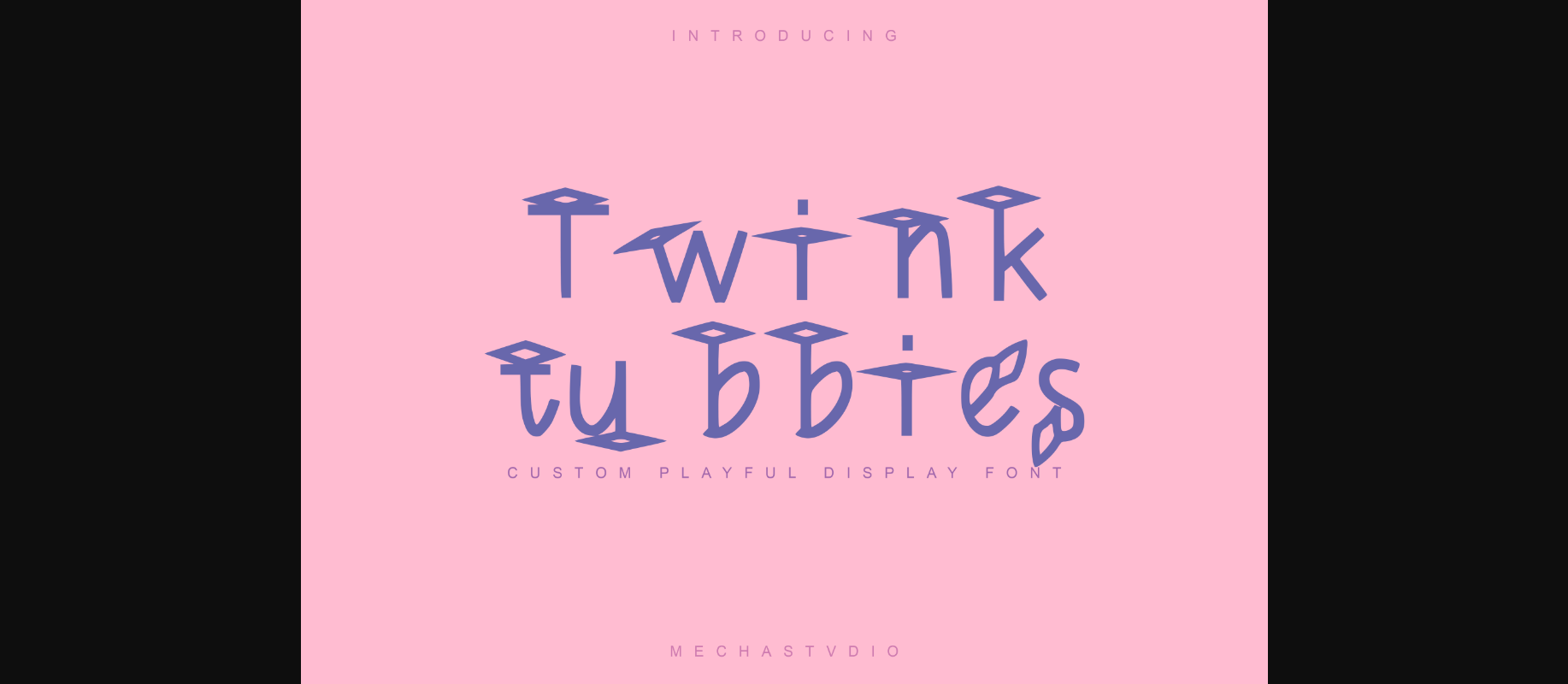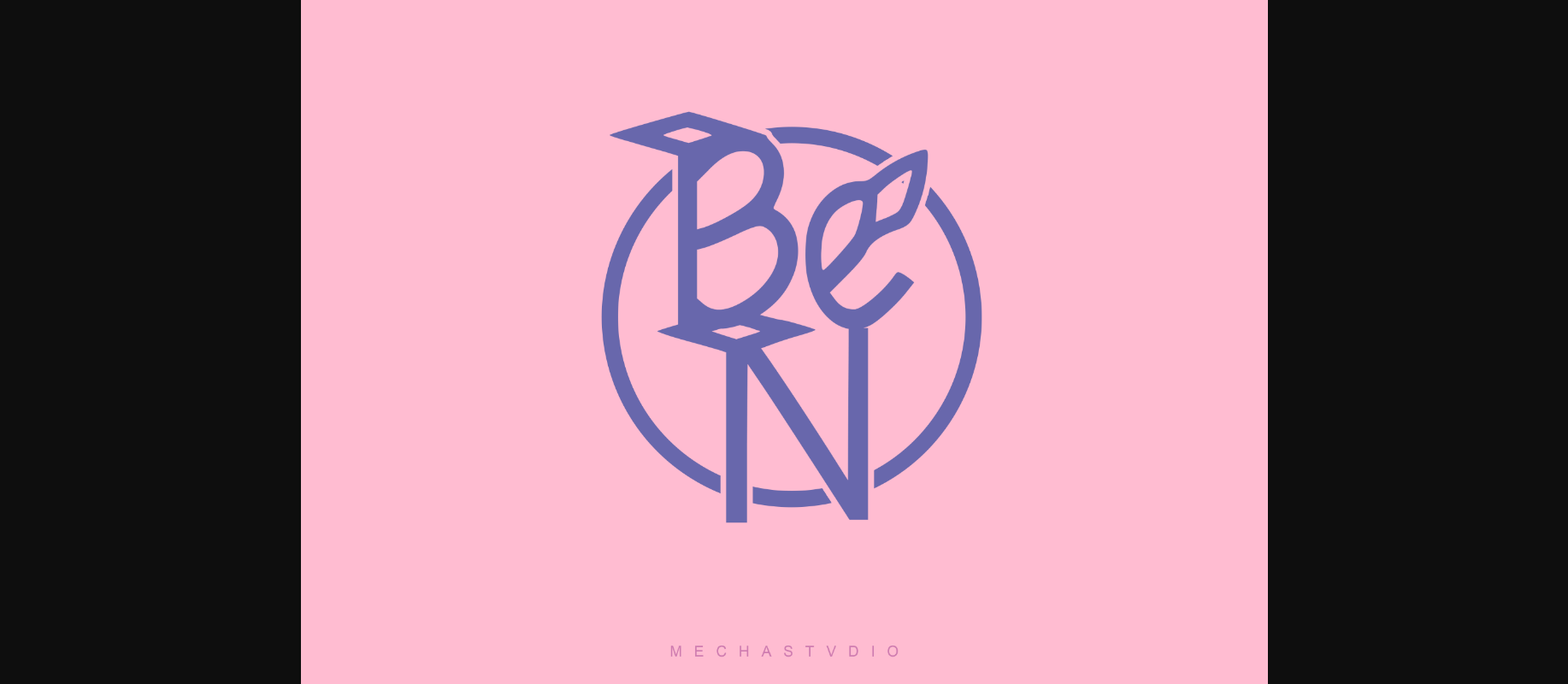
Twinktubbies Font
About Twinktubbies Font
Twinktubbies is a fun, playful, and unique decorative font perfect for logos, branding, stationery, poster designs, social media posts, and more. Add it to your fonts library, and it will become your favorite in no time at all!